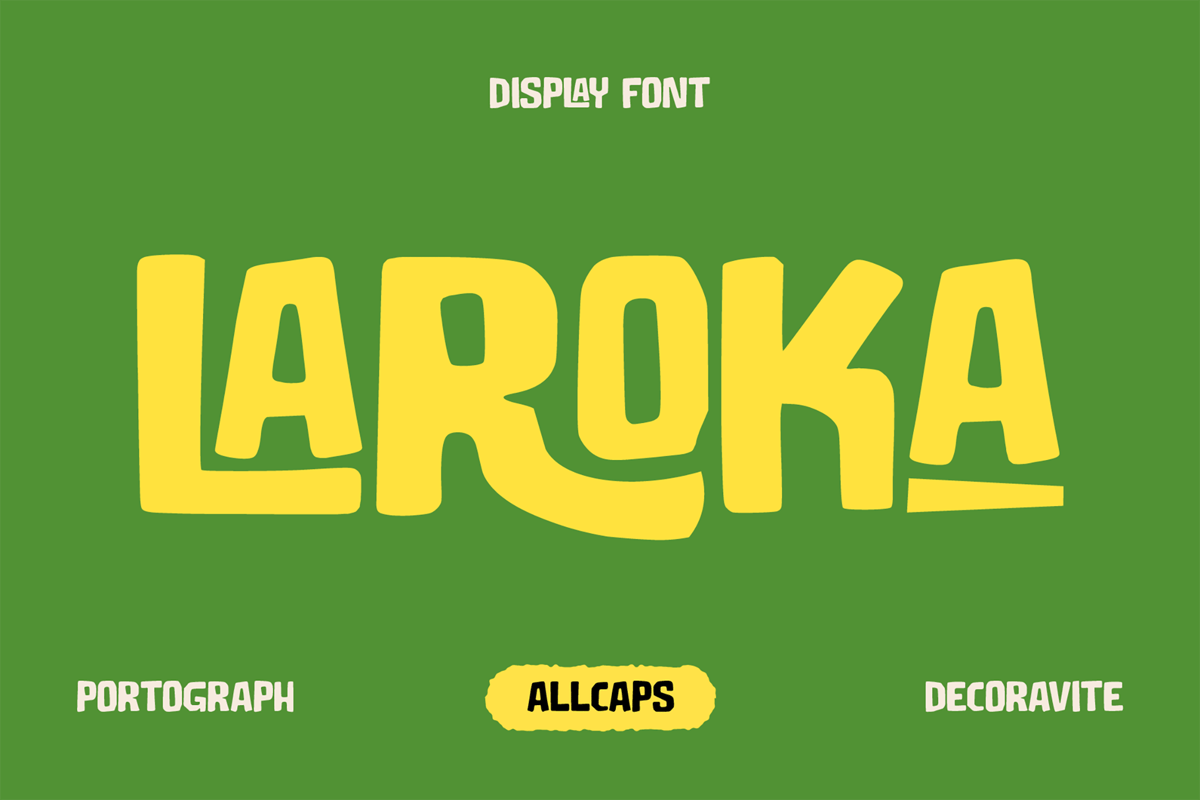
Laroka - Food Font
Inject bold flavor and playful personality into your designs with Laroka, the chunky display font that instantly grabs attention. This funky decorative typeface features thick letterforms, dynamic curves, and creative ligature combinations that create a lively, eye-catching typographic style. Drawing inspiration from food culture, street vibes, and contemporary playful branding, Laroka delivers the perfect blend of strength, cheerfulness, and approachability for projects that need to stand out. ...